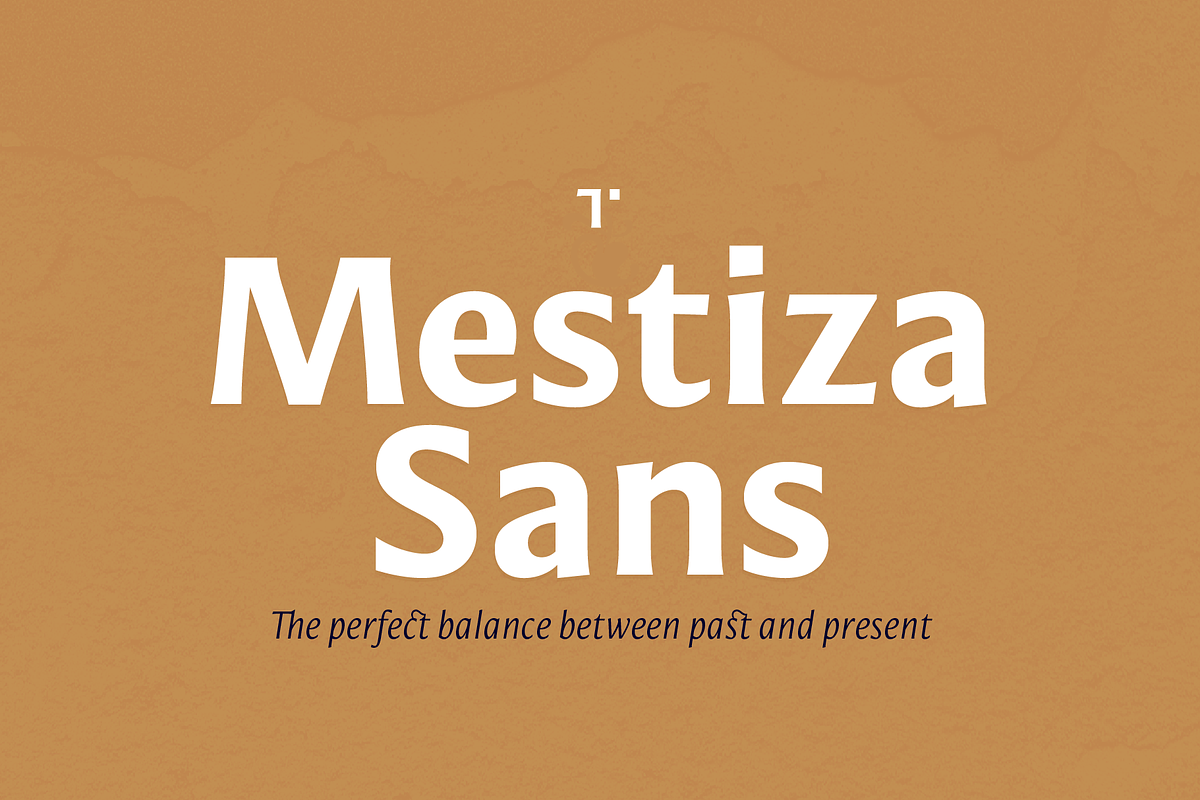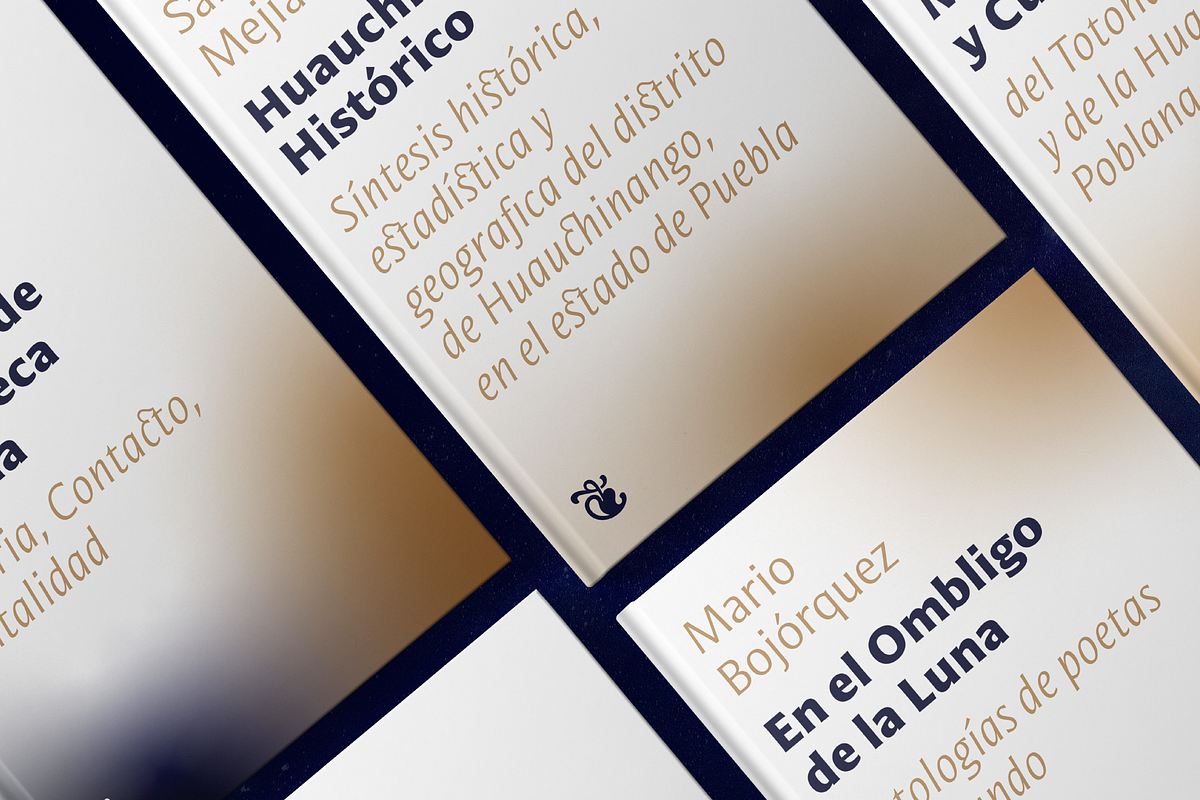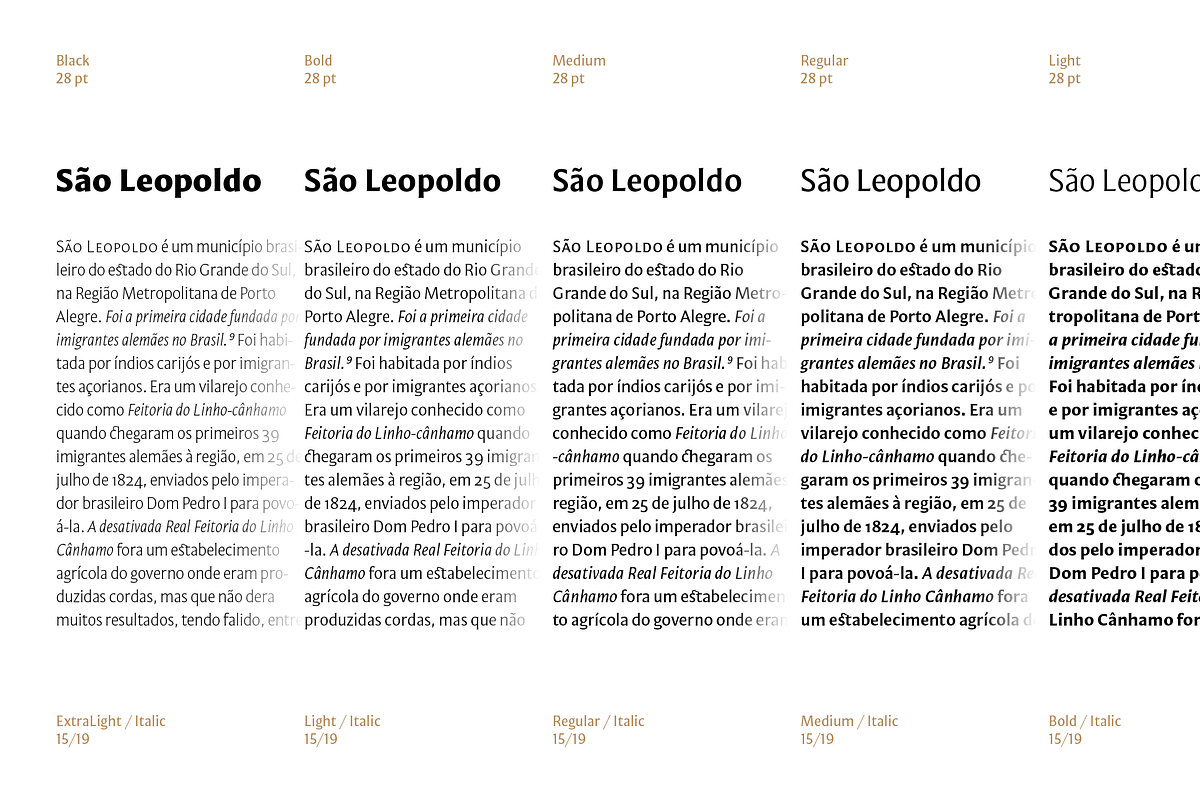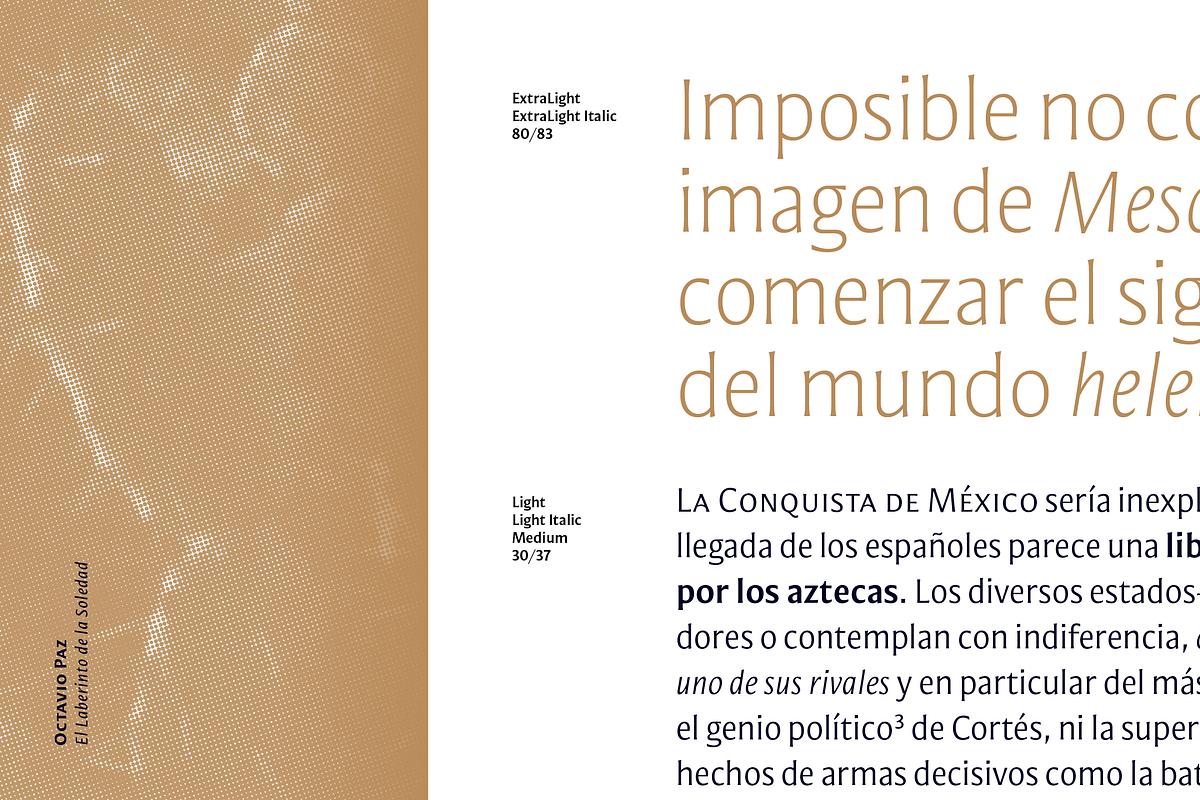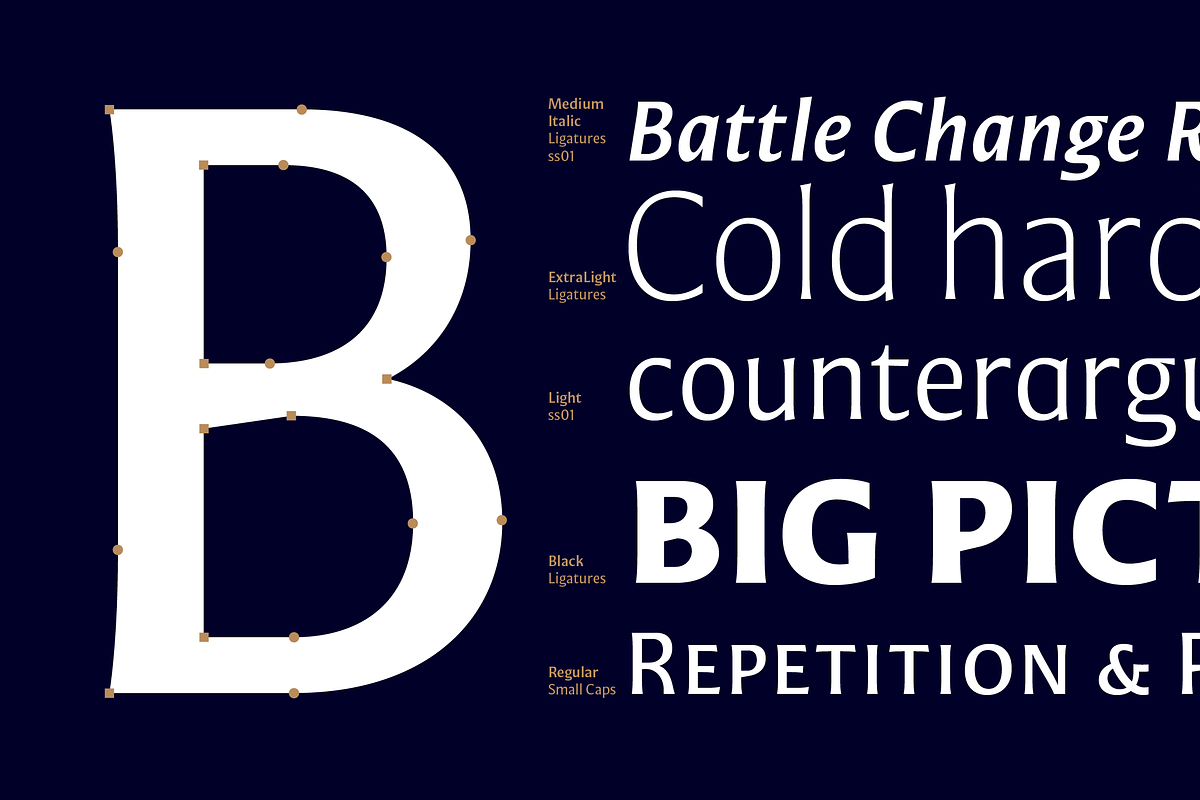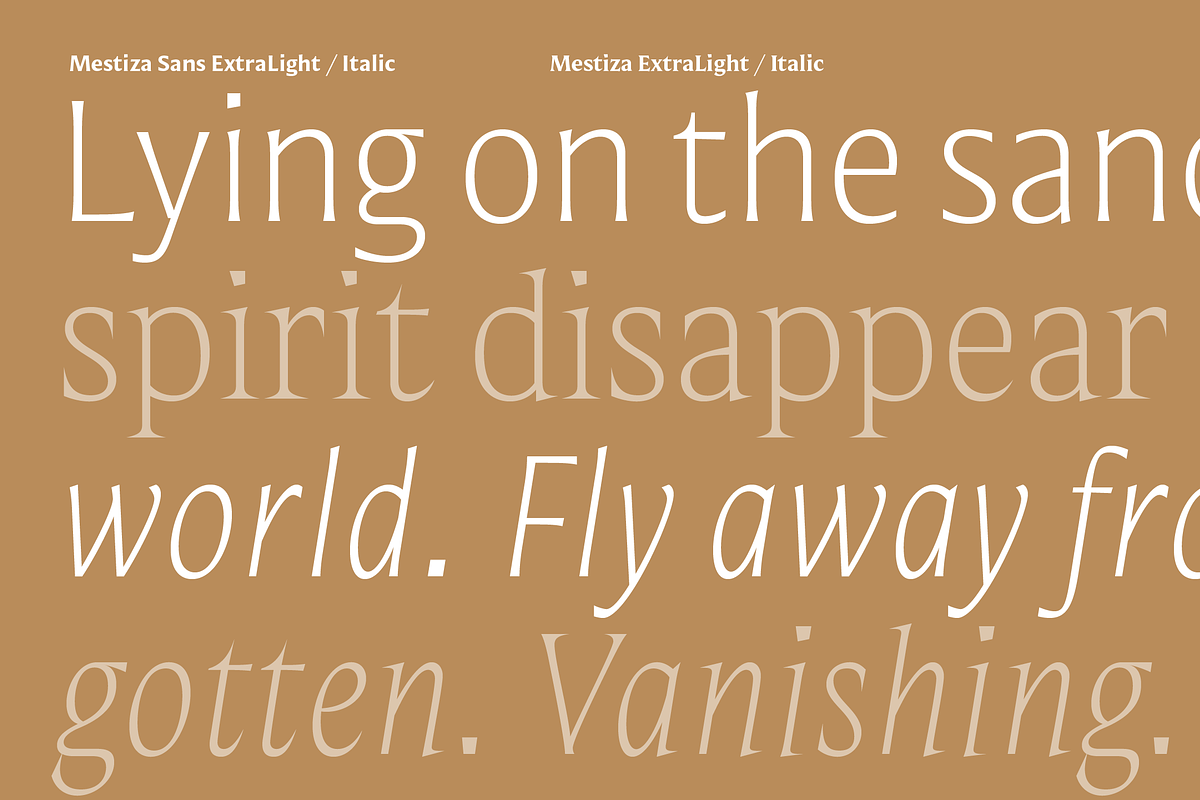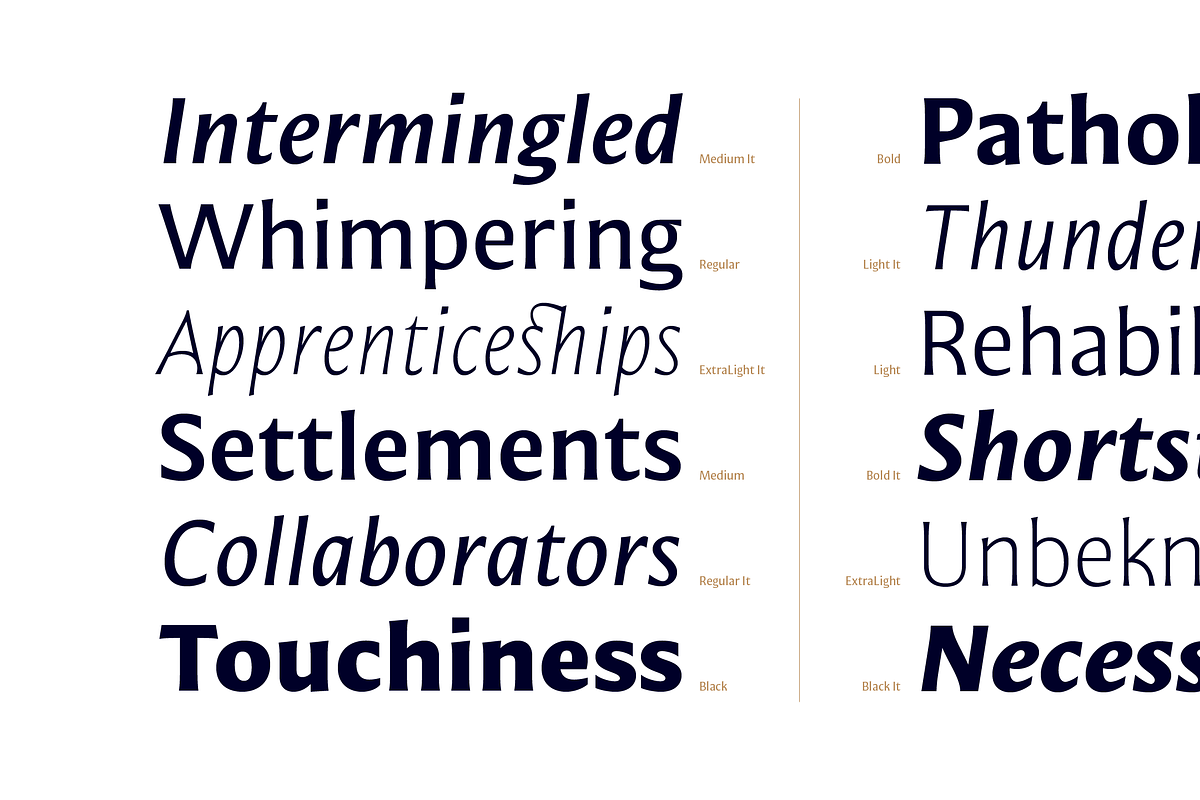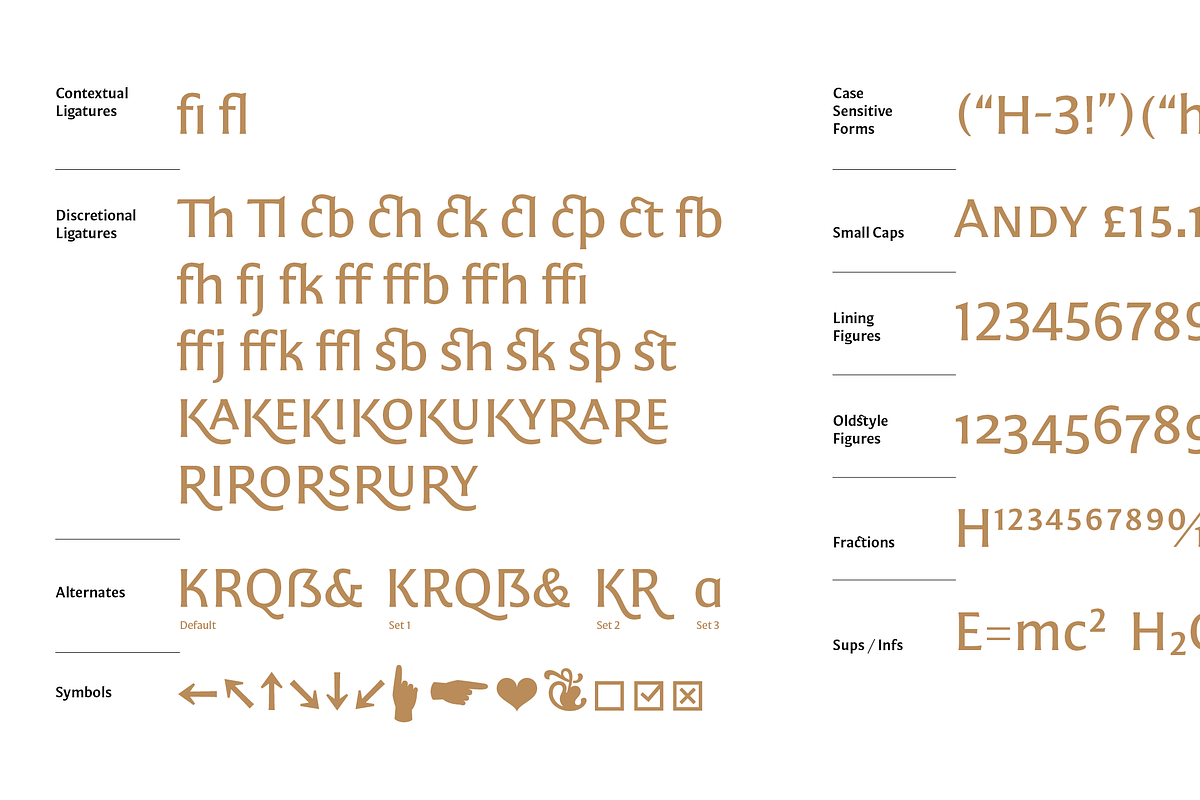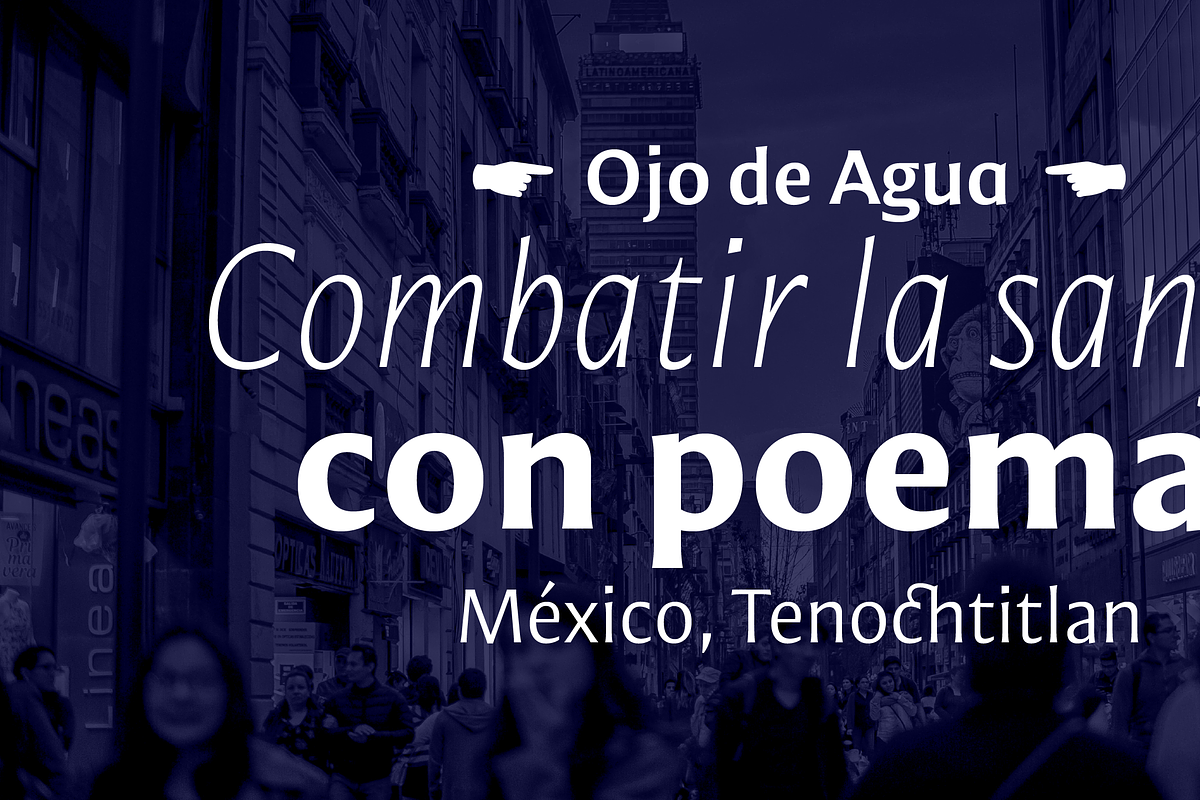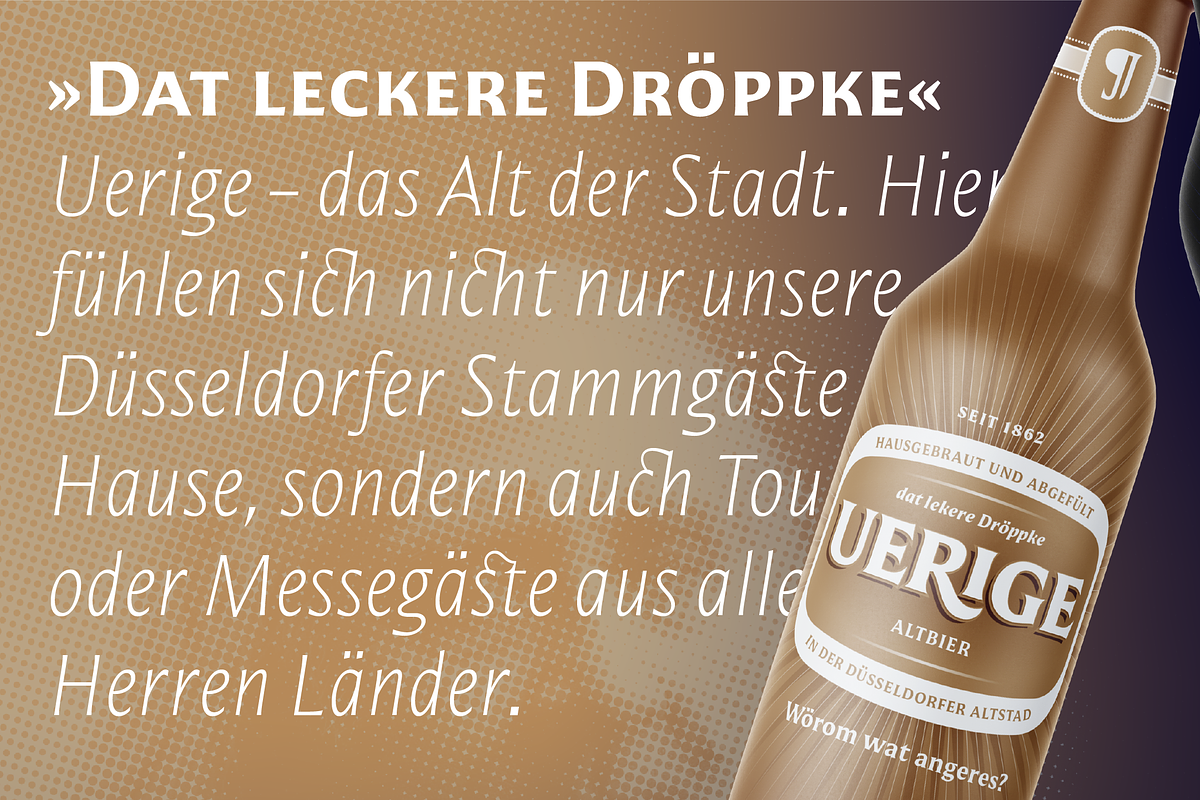
Mestiza Sans
Mestiza Sans is a humanist sans serif font with calligraphic influences. It's designed to be both elegant and strong, making it suitable for a variety of uses including headlines, branding, and editorial projects. The font includes over 700 multilingual characters, such as small caps, ligatures, alternates, symbols, and six different numeral styles.